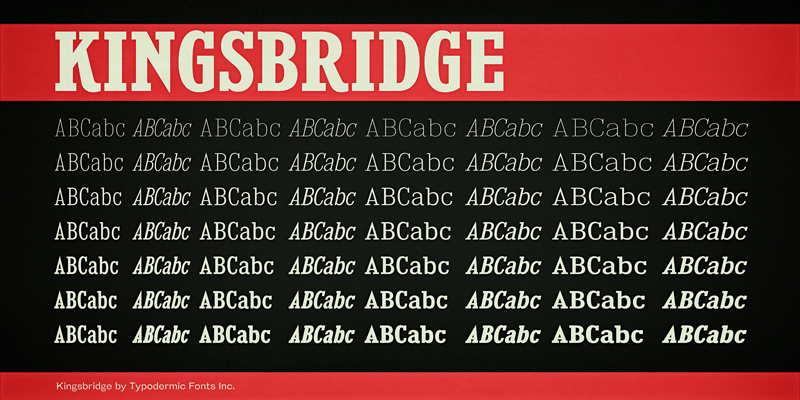
Kingsbridge is a slab-serif typeface family with sharp points on the A, M, N, V and W. These fonts include a license that allows free commercial use: sometimes referred to as a desktop license. This allows you to install the fonts on a computer and use them to create posters, web graphics, game graphics, t-shirts, videos, signs, logos and more. Read the license agreement for details. If you'd like to embed these fonts in an app, ebook, on the web or anything that's not covered by the desktop license agreement, visit the link below. You'll find distributors who offer different types of licenses or you can contact me for help. http://typodermicfonts.com/kingsbridge/ |